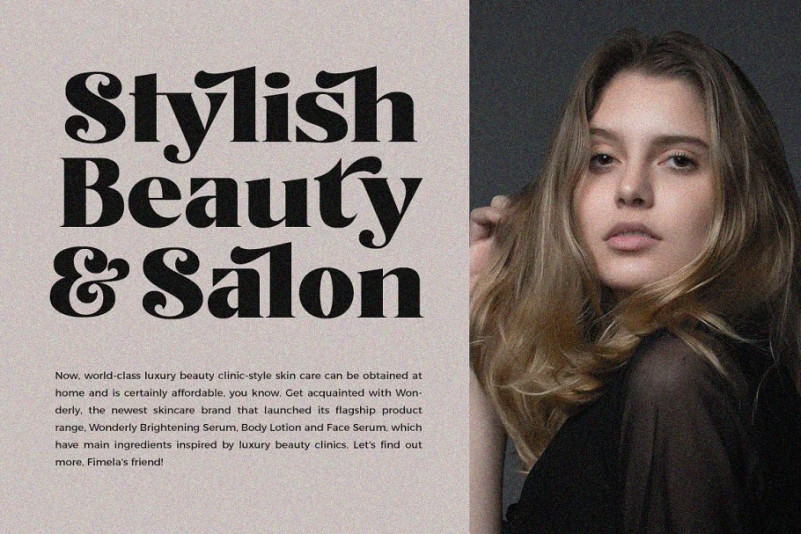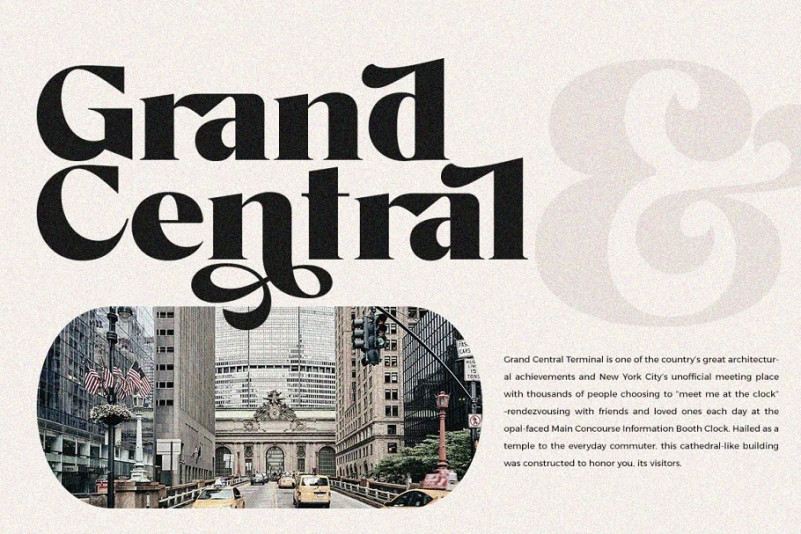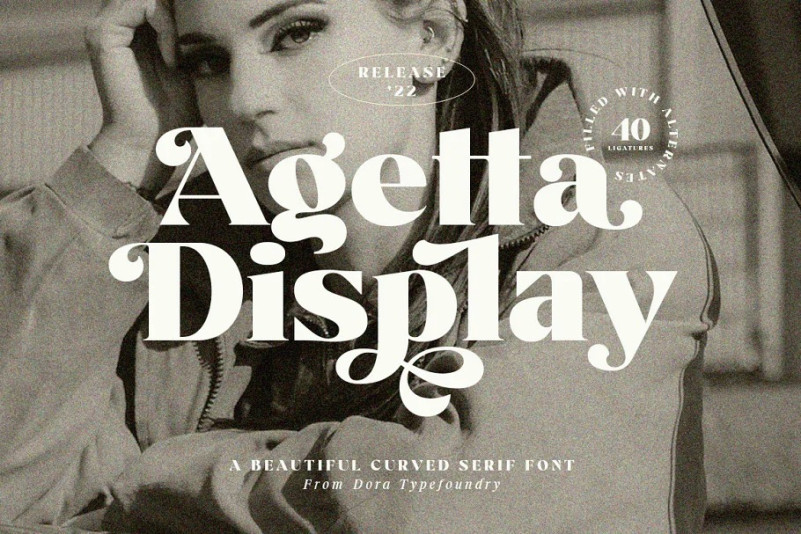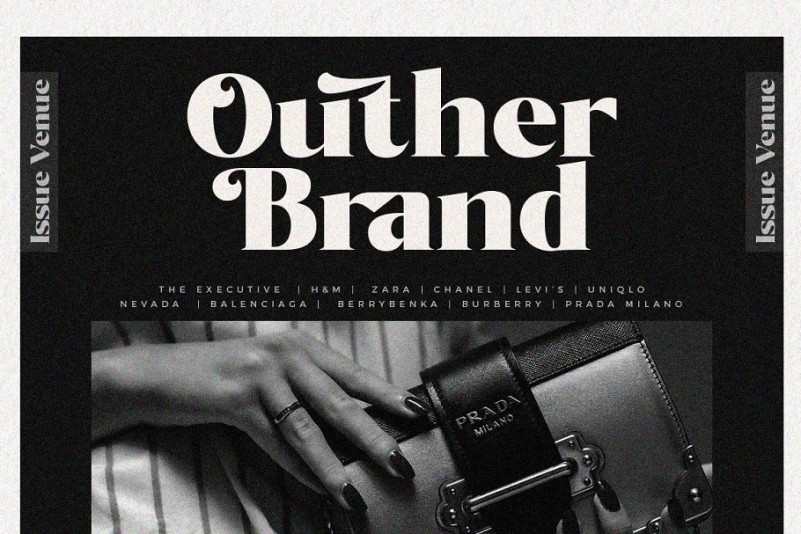
Agetta Display Font is a fancy vintage serif typeface, Create bold, gorgeous headlines and elegant designs. Agetta Display is inspired by something simple, elegant, usable and versatile.
This serif typeface that looks amazing in both large and small settings is perfect for your design needs but still clean and elegant to apply to various other formal forms such as invitations, labels, logos, magazines, books, greeting/wedding cards, packaging. , fashion, make up, stationery, novel, label or any kind of advertising purposes.
Agetta Display